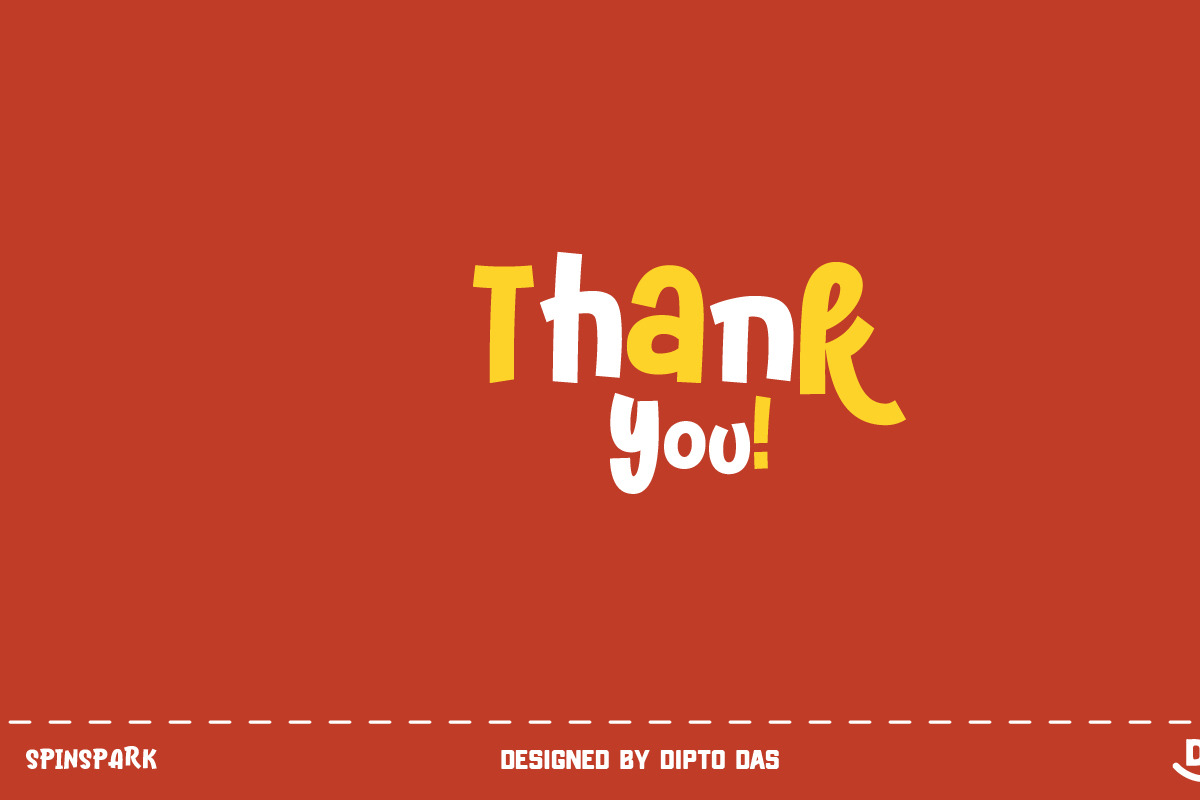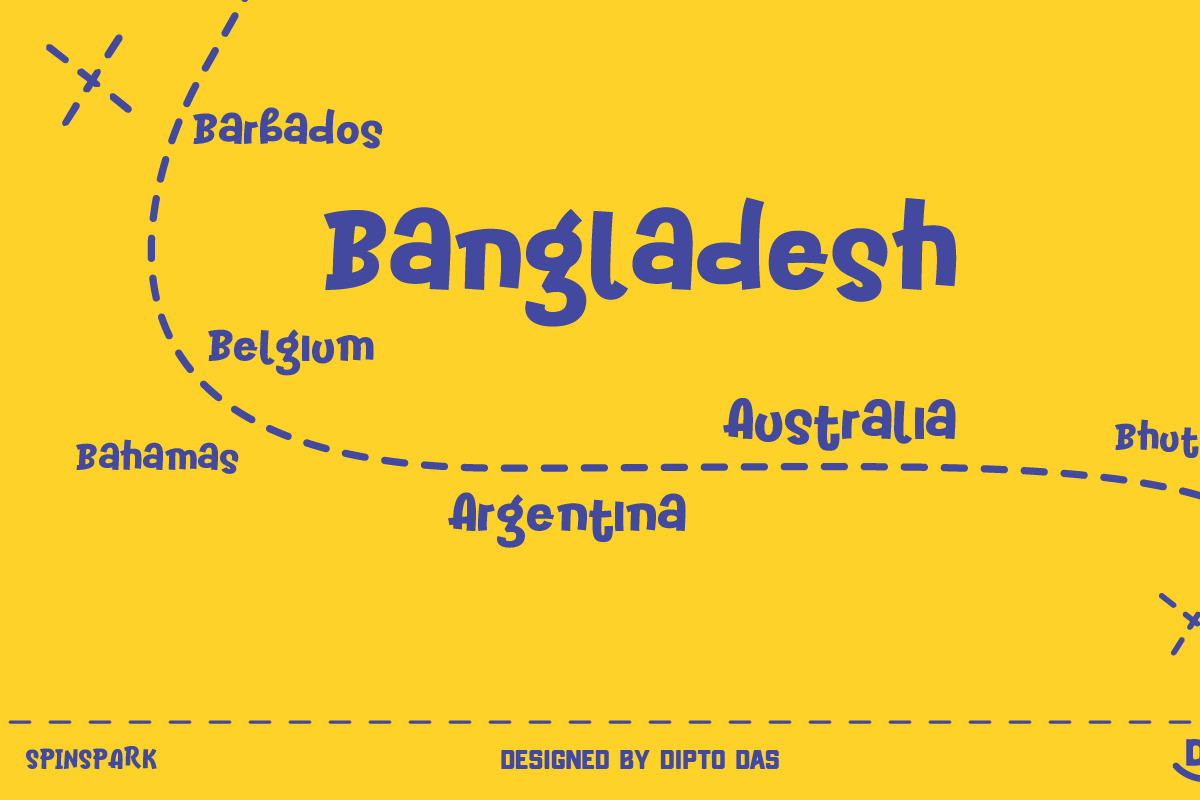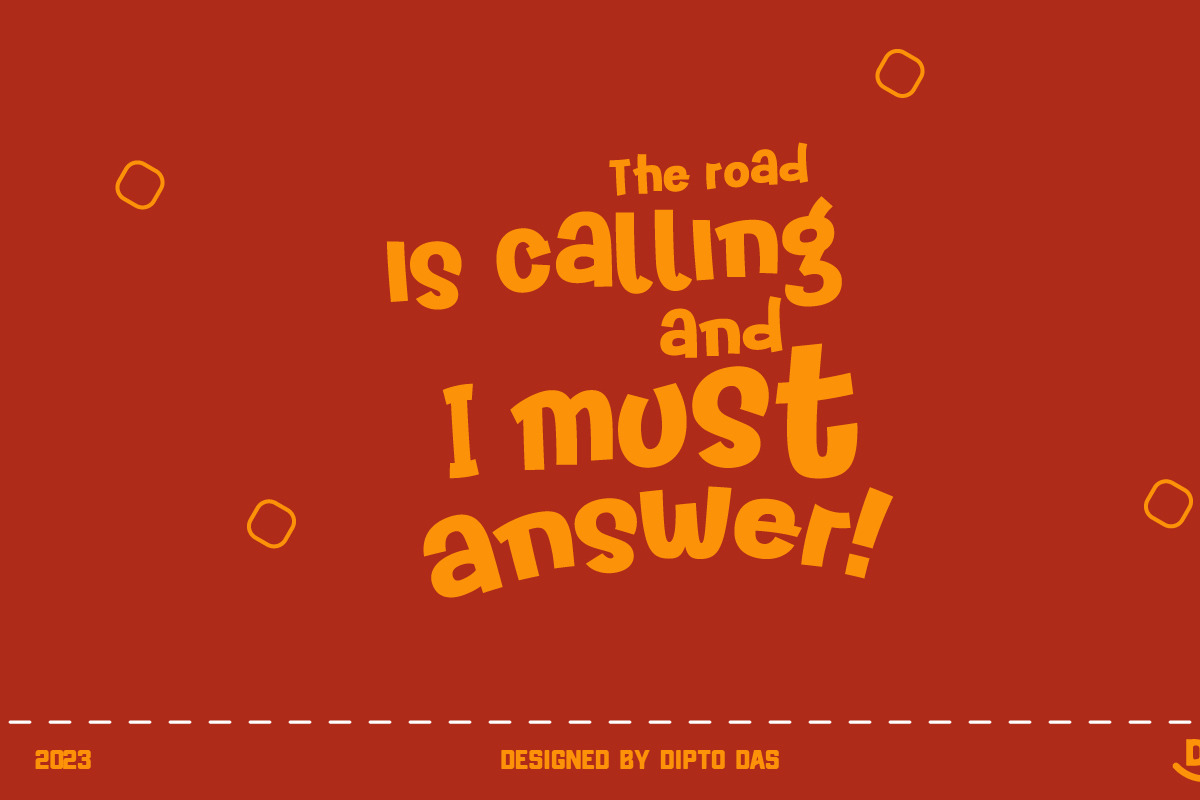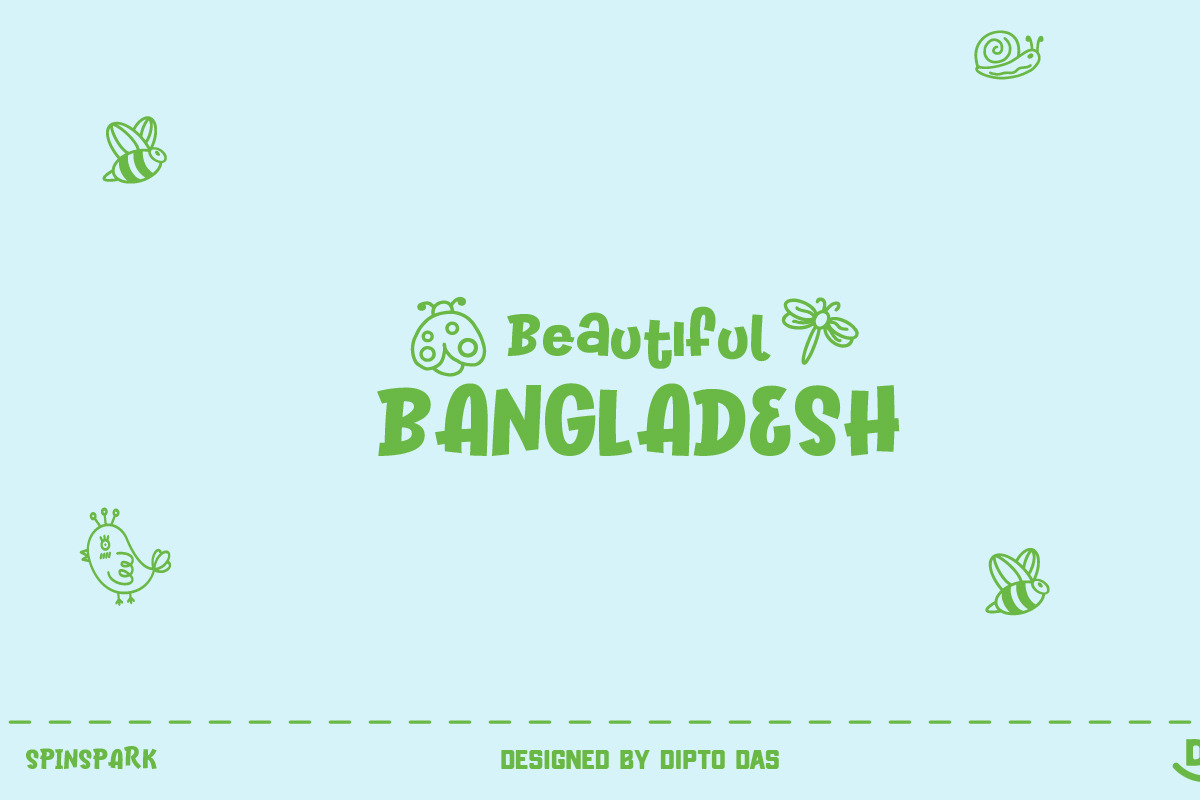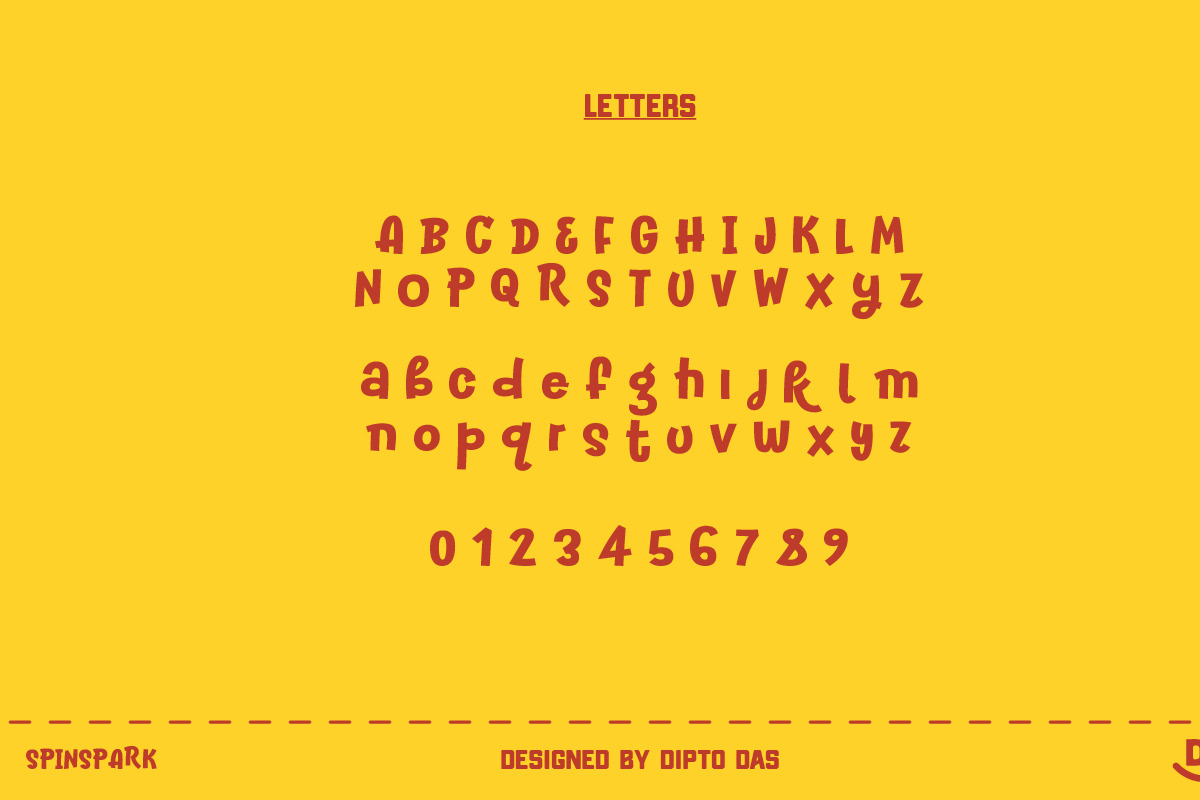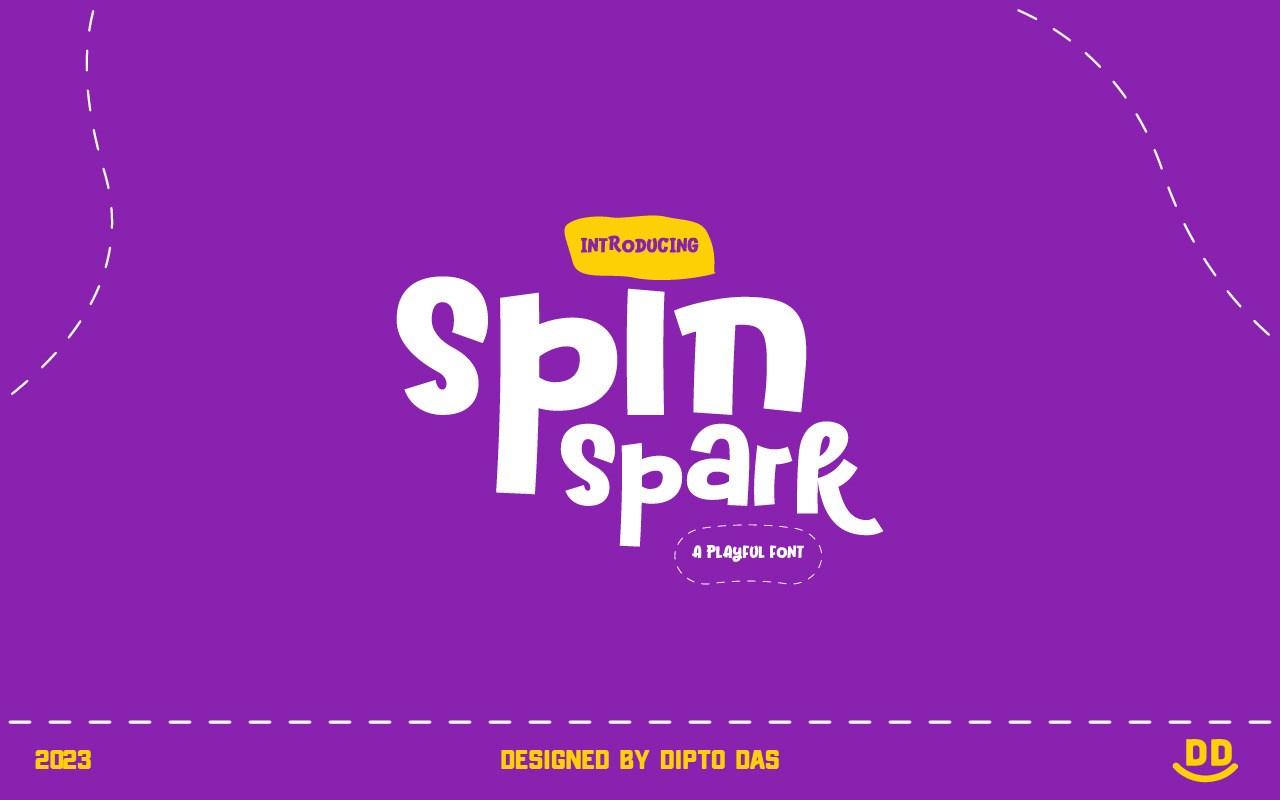
SpinSpark Playful Font
Introducing SpinSpark, a delightful and captivating font designed to infuse playfulness into every stroke. With its lively curves and dynamic letterforms, SpinSpark dances across the page, inviting smiles and spreading joy. Each character exudes a sense of spontaneity and energy, effortlessly bringing your words to life.
SpinSpark is a font that defies conventions, embracing a unique fusion of whimsy and elegance. Its fluid lines and bouncy contours evoke a sense of movement, like a carefree dance in the summer breeze. Whether used for headlines, logos, or creative projects, this font adds a touch of vibrant personality that captures attention and leaves a lasting impression.
Designed with meticulous attention to detail, SpinSpark ensures legibility without sacrificing its distinct charm. Every glyph showcases a harmonious balance between playful exuberance and refined craftsmanship. Its versatile nature allows it to seamlessly adapt to various design themes, from children's books and posters to modern branding and digital media.
Unleash your creativity with SpinSpark and let your words take flight in a world of imagination. Whether you aim to evoke nostalgia, convey a sense of lightheartedness, or simply inject fun, this font is your perfect companion. Experience the joy of typography with SpinSpark, where every character tells a story and invites you to join in the playful adventure of design.